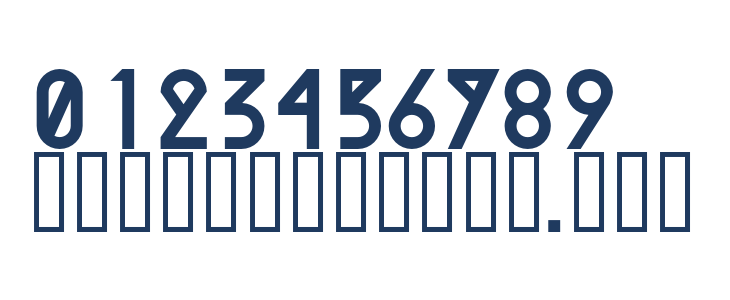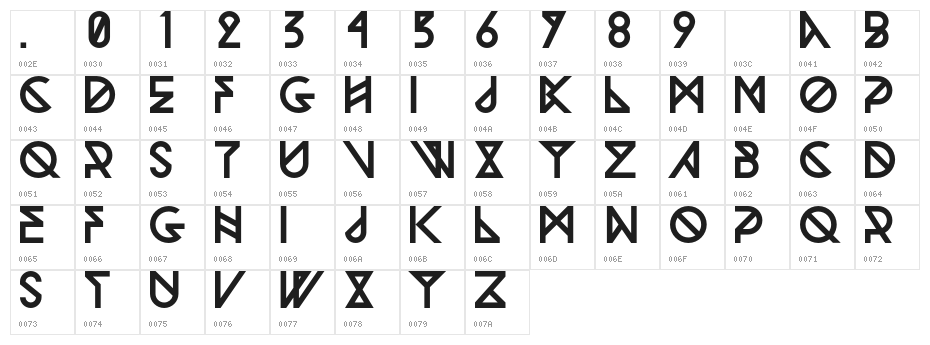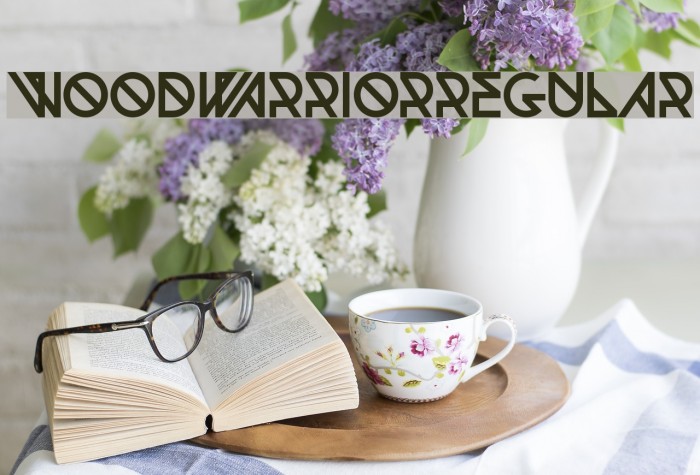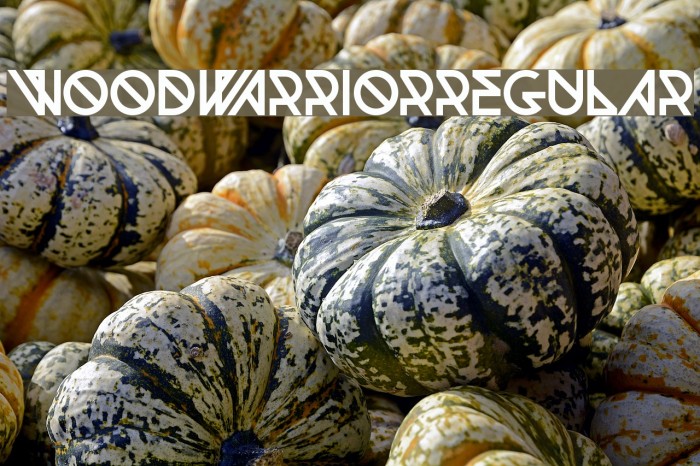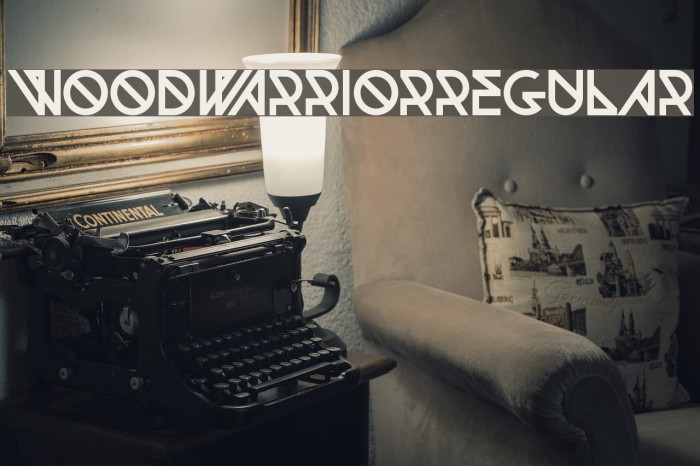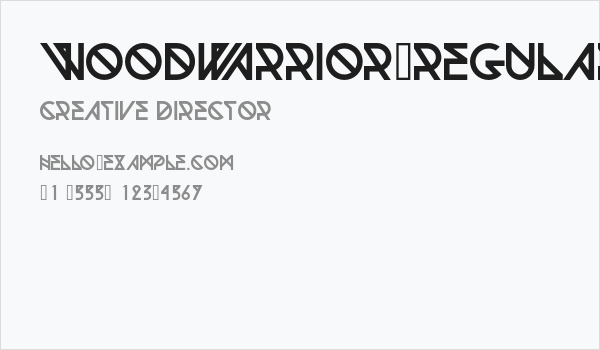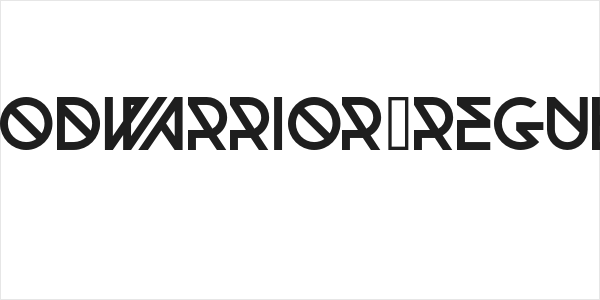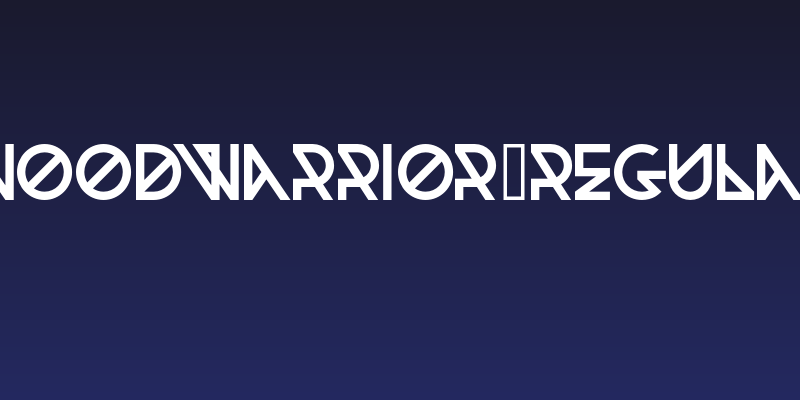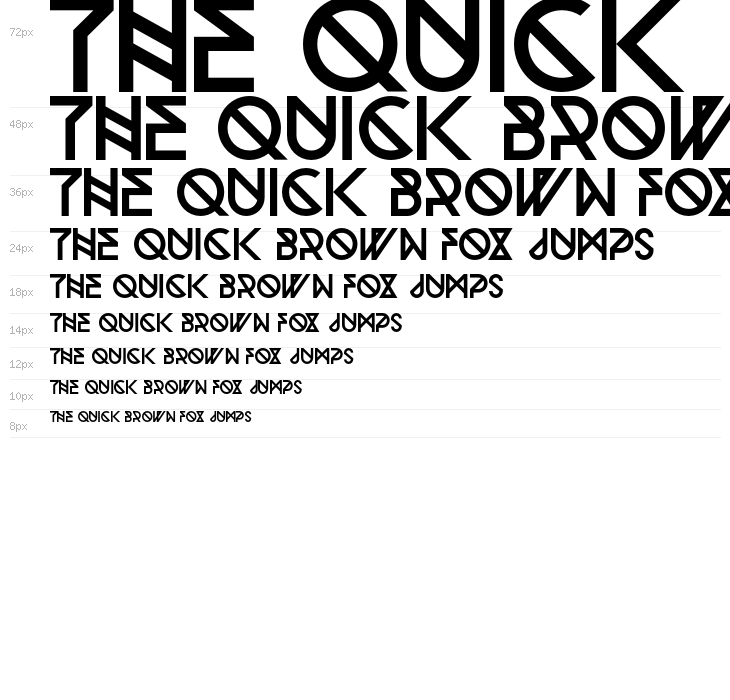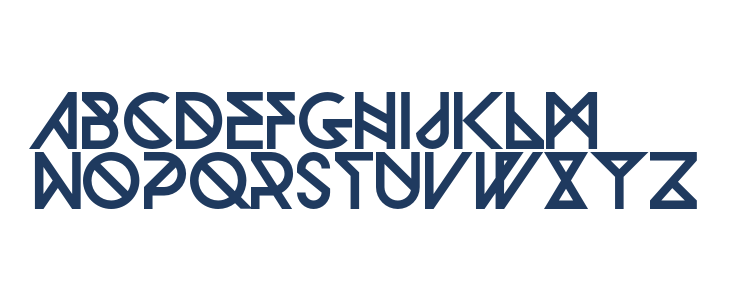
Woodwarrior-Regular Font
Woodwarrior-Regular Description
This font features a bold and geometric design with sharp angles and clean lines. The characters are constructed with a distinct angular style, giving them a modern and edgy appearance. The uppercase and lowercase letters maintain a consistent aesthetic, with each character exhibiting unique geometric cuts and shapes. The numerals are similarly styled, ensuring uniformity across all glyphs. This font's design is striking and memorable, making it ideal for projects that require a strong visual impact. The special characters are crafted to match the overall angular theme, enhancing the font's cohesive look.
| Proposed Projects | Ideal for branding, posters, album covers, and any design requiring a bold, modern aesthetic. |